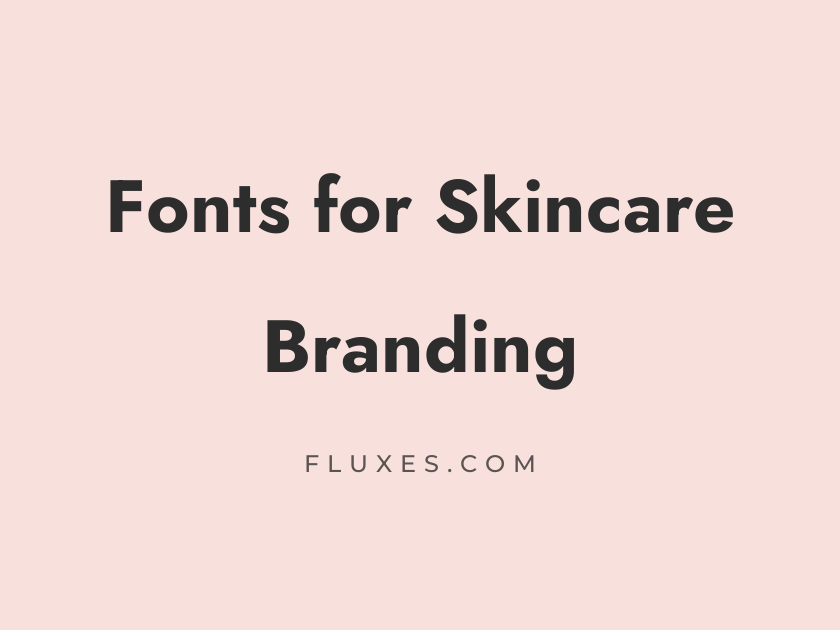
66 Best Fonts for Skincare Branding
Skincare branding has to do two things at once: signal clinical credibility and evoke the sensory pleasure of the product itself. That tension is exactly why type selection matters so much in this category. A serum label needs to feel trustworthy enough to sit next to a dermatologist’s recommendation, yet inviting enough to make someone want to touch the bottle.
Because the category spans everything from apothecary-style natural balms to glossy clinical retinol lines to spa and wellness packaging, the right typeface varies enormously by brand story. What follows is a wide survey of free Google Fonts options that cover minimalist clinical sans-serifs, elegant botanical serifs, apothecary scripts, and the condensed label faces that hold up on tiny jars.
1. Jost
Pure ingredients, gently formulated for every skin type
Jost’s geometric circles and low contrast give it an Erik Spiekermann/Futura-adjacent warmth without feeling cold or corporate. It reads as effortlessly modern on a minimalist skincare label, especially in lowercase.
2. Work Sans
Formulated with science, inspired by nature
A dependable workhorse for skincare websites and ingredient lists. Its open apertures keep long paragraphs of product copy legible even at small sizes on mobile screens.
3. Poppins
Radiant skin starts with clean beauty
Poppins has become something of a default in beauty branding, and for good reason: its geometric roundness feels friendly and contemporary at once. Overuse is a real risk here, so pair it with a distinctive serif elsewhere in the identity to avoid blending into every other DTC skincare brand.
4. DM Sans
Barrier repair, hydration, and calm
Understated and slightly narrower than most geometric sans options, DM Sans suits clinical-leaning brands that want restraint over personality.
5. Karla
Lightweight formulas for sensitive skin
A grotesque with subtle ink traps and a touch of personality in its curves. It sits comfortably on packaging that wants to feel considered rather than mass-produced.
6. Manrope
Ceramide-rich moisture, morning and night
Manrope’s tight spacing and semi-geometric letterforms give it a techy, lab-coat precision that suits active ingredient callouts and derm-backed brand voices.
7. Outfit
Skin barrier science, simplified
Crisp and slightly condensed, this is a strong choice for logotypes on small tubes and droppers where every millimeter of label space counts.
8. Sora
Clinically tested, dermatologist approved
Sora carries a rounded-yet-structured quality that reads well in bold weights for hero headlines on skincare landing pages.
9. Albert Sans
Gentle exfoliation, visible glow
A newer grotesque with clean, almost architectural proportions. It stays neutral enough to let product photography and packaging color do the talking.
10. Urbanist
Minimalist skincare for maximal results
Thin, airy, and slightly geometric, Urbanist works best in generous letter spacing on minimalist e-commerce sites rather than dense body copy.
11. Plus Jakarta Sans
Balanced formulas, balanced skin
This one has a soft warmth in its curves that keeps it from feeling sterile, making it a good match for clean beauty brands that still want approachability.
12. Figtree
Everyday essentials for healthy skin
Figtree is unassuming in the best way. It disappears into the background so ingredient lists, usage instructions, and legal copy stay easy to scan.
13. Questrial
Simple ingredients, honest skincare
A single-weight geometric sans with wide, confident letterforms reminiscent of Century Gothic. It works best as a display face for logotypes rather than for long paragraphs, since it only comes in one weight.
14. Rubik
Fresh, clean, and cruelty-free
Rounded corners give Rubik a friendly edge that suits younger, playful skincare lines aimed at teens or first-time skincare buyers.
15. Montserrat
Skincare rituals worth repeating
Montserrat’s geometric confidence has made it a staple of beauty branding for over a decade. It pairs naturally with a delicate script or serif for a logo that needs both structure and softness.
16. Quicksand
Soft skin, softer routine
The rounded terminals here evoke bar soap and cotton, which is exactly the mood many natural and baby skincare lines are chasing.
17. Josefin Sans
Art deco elegance meets modern skincare
Thin and slightly retro, Josefin Sans carries a 1920s geometric elegance that suits vintage-inspired apothecary branding without tipping into costume.
18. Raleway
Refined formulas for discerning skin
Raleway’s elongated, elegant proportions make it a favorite for premium skincare packaging that wants a sans-serif with some sophistication left in it.
19. Nunito
Gentle care for every skin story
Soft, rounded, and warm, Nunito is well suited to family and baby skincare lines where approachability outranks luxury positioning.
Condensed faces such as Bebas Neue or Archivo Narrow earn their keep on tiny jar lids and dropper bottles where every millimeter counts.
On web, reserve display serifs and scripts for headlines only, and let a humanist sans like Work Sans or Mulish carry the paragraphs so the site stays fast and easy to read.
Whichever combination you land on, the free fonts above offer enough range to cover a full skincare identity, from packaging and web to social and print, without ever touching a paid license.